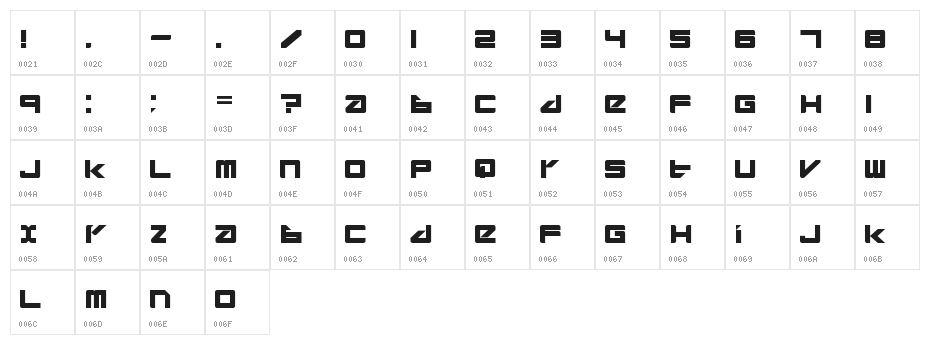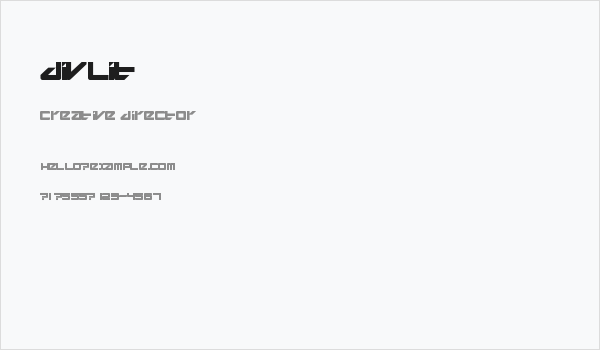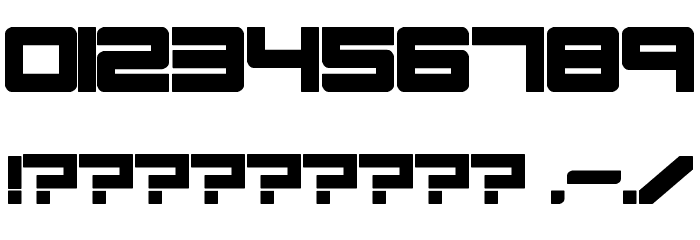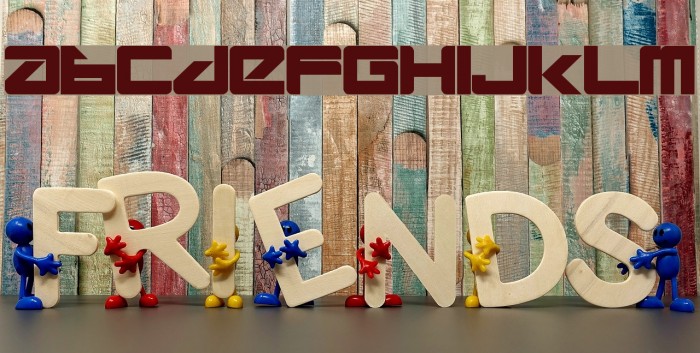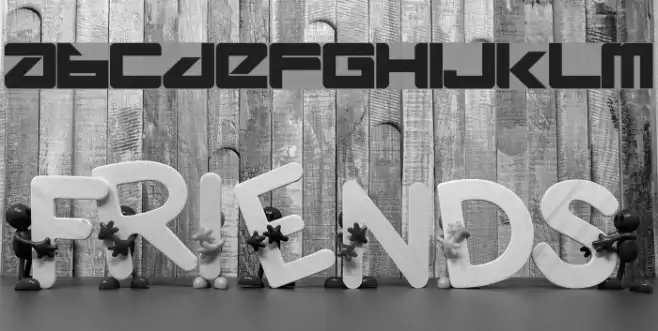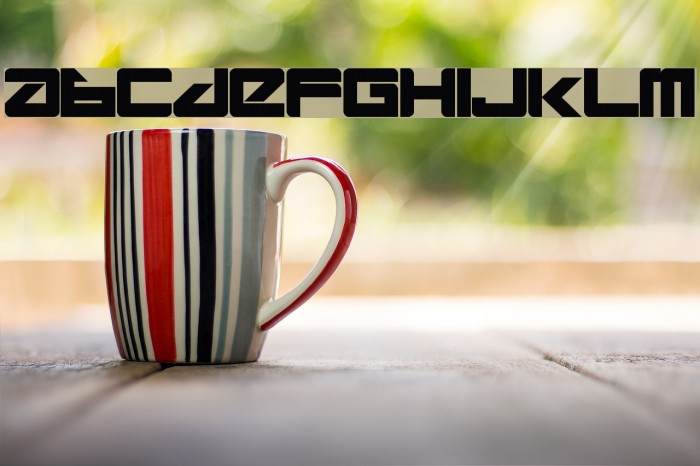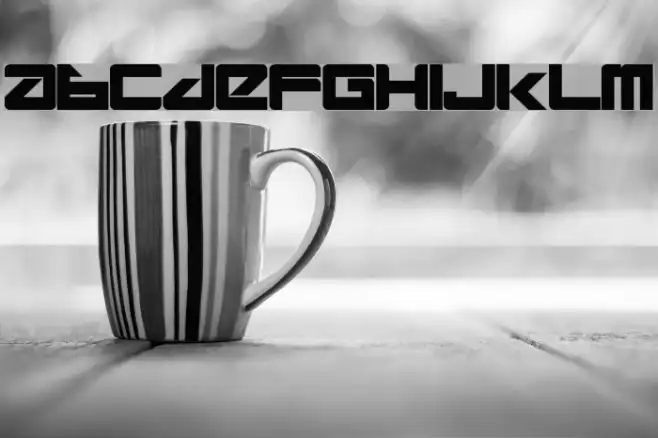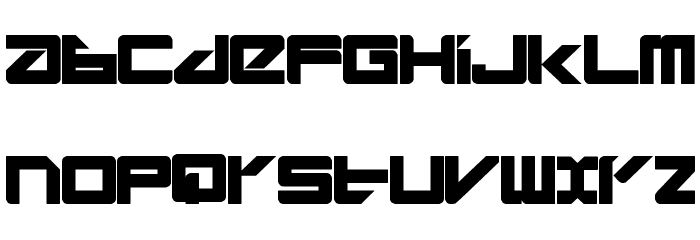
divlit Font
divlit Description
This font features a bold, futuristic design with geometric shapes and sharp angles. The characters are constructed with a consistent thickness, giving them a strong and solid appearance. The uppercase and lowercase letters share similar design elements, maintaining uniformity across the alphabet. The numbers and special characters follow the same stylistic approach, ensuring a cohesive look. This font's unique style makes it stand out, ideal for projects that require a modern and edgy aesthetic.